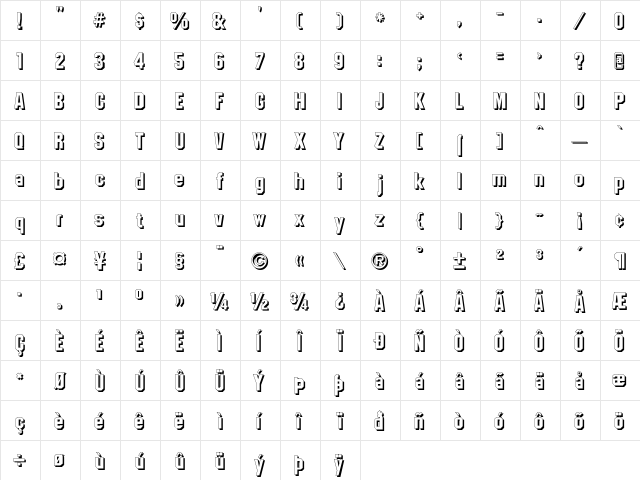
College TM Shadow
| Style | Shadow |
Design Context for College TM Typeface
College TM brings high-energy athletic personality to the page — its confident, muscular forms are built for impact.
Built for sports team identities, athletic apparel, event posters, and high-energy promotional material.
Font Pairing: Use alongside a condensed or geometric sans for supporting copy — keep the pairing bold, functional, and free of ornament.
Pro Tip: College TM thrives on contrast — try it large, bold, and tight against a clean background for maximum visual impact.